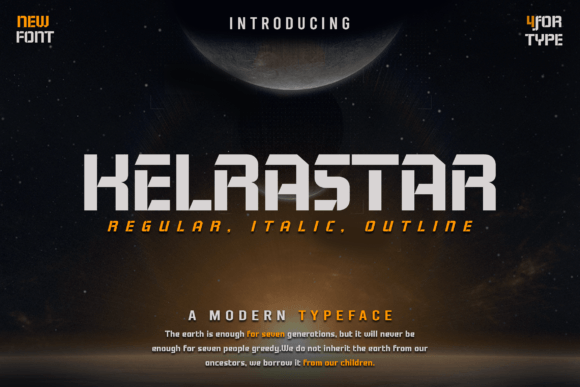
Unleash your creativity with Kelrastar, a captivating sans serif display font crafted to bring your projects to life. Its modern and sleek design radiates a futuristic charm, adding a touch of elegance to logos, branding materials, and digital designs. Kelrastar is more than just a font; it's an expression of your unique style and vision.
With its clean lines and sharp edges, Kelrastar exudes a sense of sophistication and innovation. Each letterform is meticulously crafted to create a striking visual impact, ensuring your designs stand out from the crowd. Embrace the power of Kelrastar and let your imagination run wild.
Kelrastar's versatility knows no bounds. It seamlessly adapts to a multitude of projects, from sleek logos and branding to eye-catching social media graphics and website designs. Its adaptability makes it the perfect choice for designers seeking a font that can effortlessly transition between different mediums and styles.
Step into the future of design with Kelrastar, the font that embodies modern aesthetics and boundless possibilities. Its sleek curves and dynamic angles are sure to captivate audiences, leaving a lasting impression that reflects your creative genius. Experience the transformative power of Kelrastar and elevate your designs to new heights of brilliance.